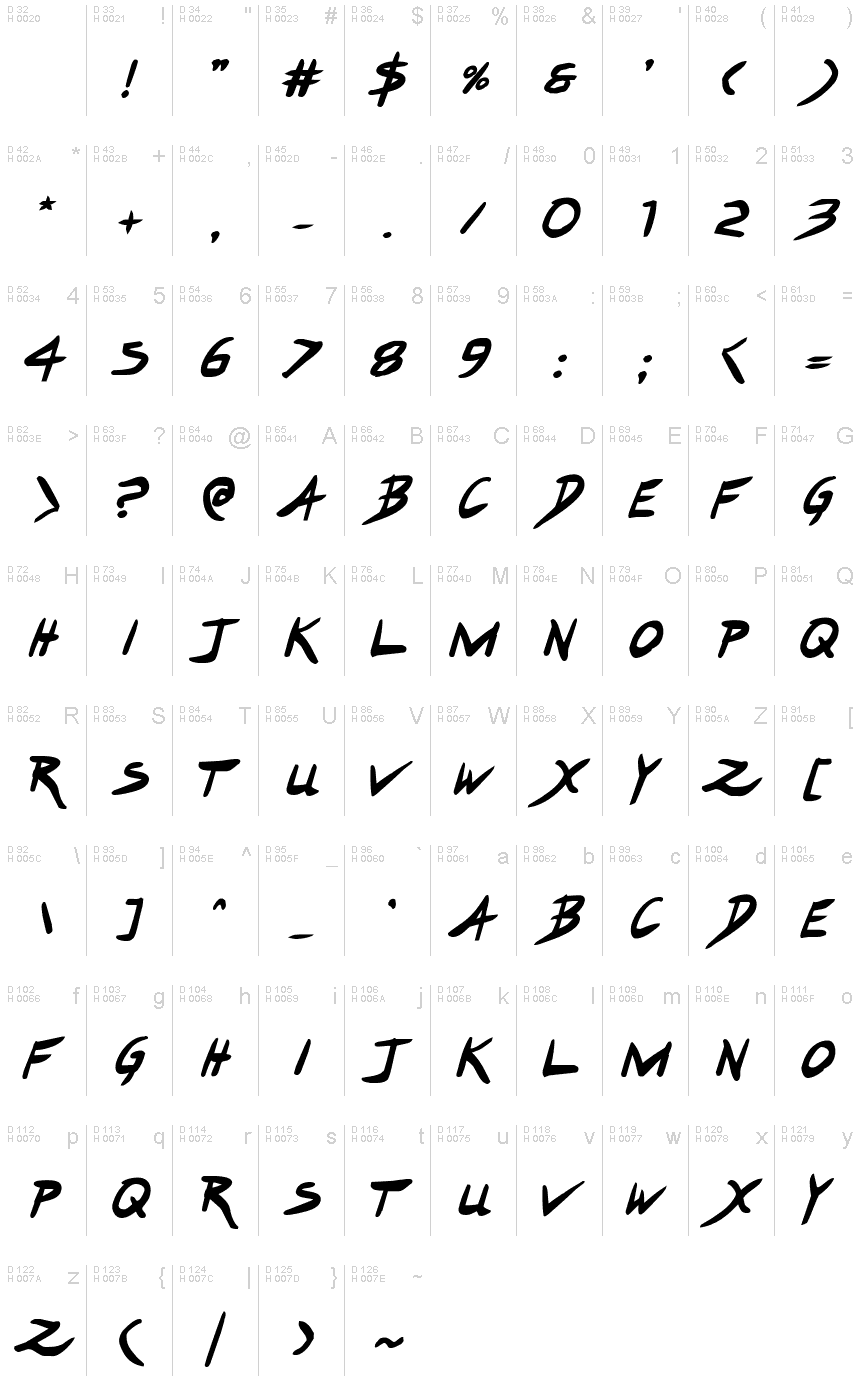
Hakturus Bold Italic
Hakturus Bold Italic, a creation by Iconian Fonts, is a captivating smooth brush font that exudes confidence and artistic flair. Its bold weight gives it an impactful presence, while the italic style adds an elegant touch. This font is perfect for designing eye-catching logos that demand attention, creating stunning headlines for magazines or websites, or even crafting stylish invitations for special events. With its unique combination of boldness and smooth brush strokes, Hakturus Bold Italic is a versatile choice suitable for a wide range of creative projects.